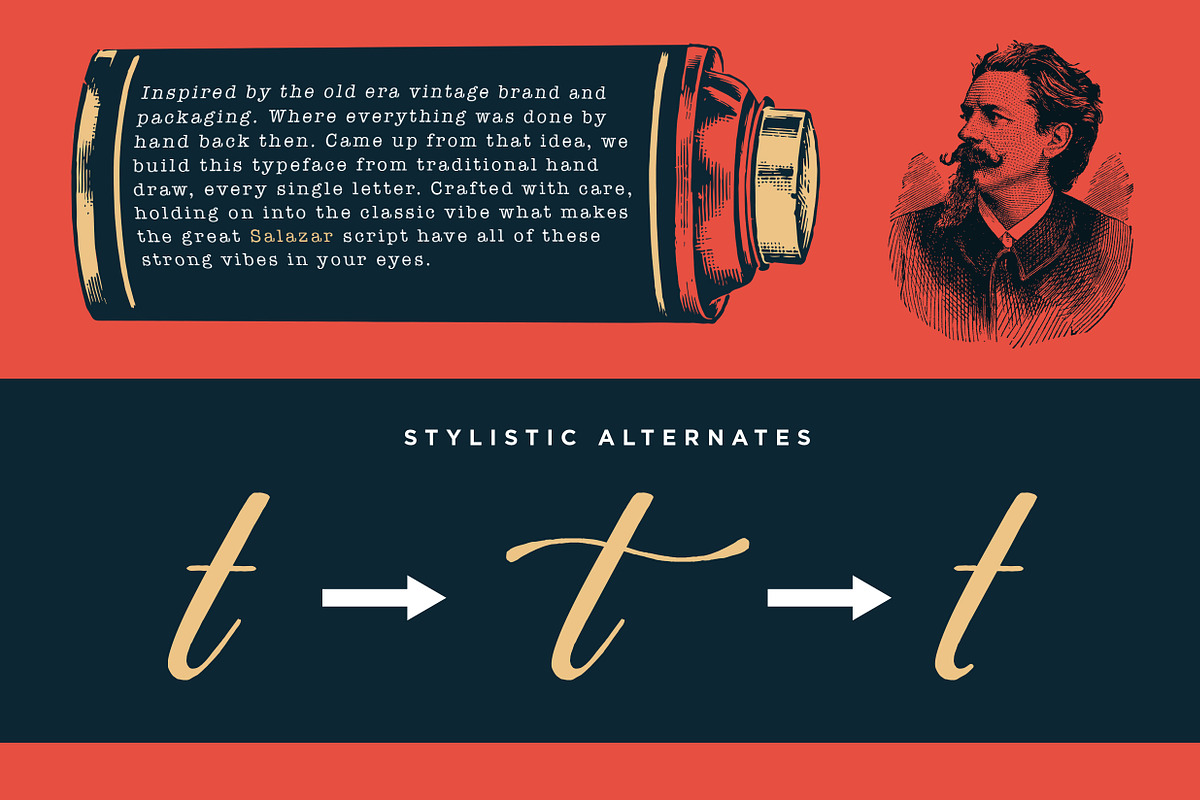
Salazar - Lettering Script
Inspired by the old era vintage brand and packaging. Where everything was done by hand back then. Came up from that idea, we build this typeface from traditional hand draw, every single letter. Crafted with care, holding on into the classic vibe what makes the great Salazar script have all of these strong vibes in your eyes.
Packed up with an swashed alternates in selected letters that possible to, and an end letter for every lowercase just in case you want a "no tail"end words.
Perfectly fit for any kind of vintage branding, paired with illustrations are easily eye catching. Logo, visual branding, website header, name, everything you need to touch with the vintage hand drawn feels.